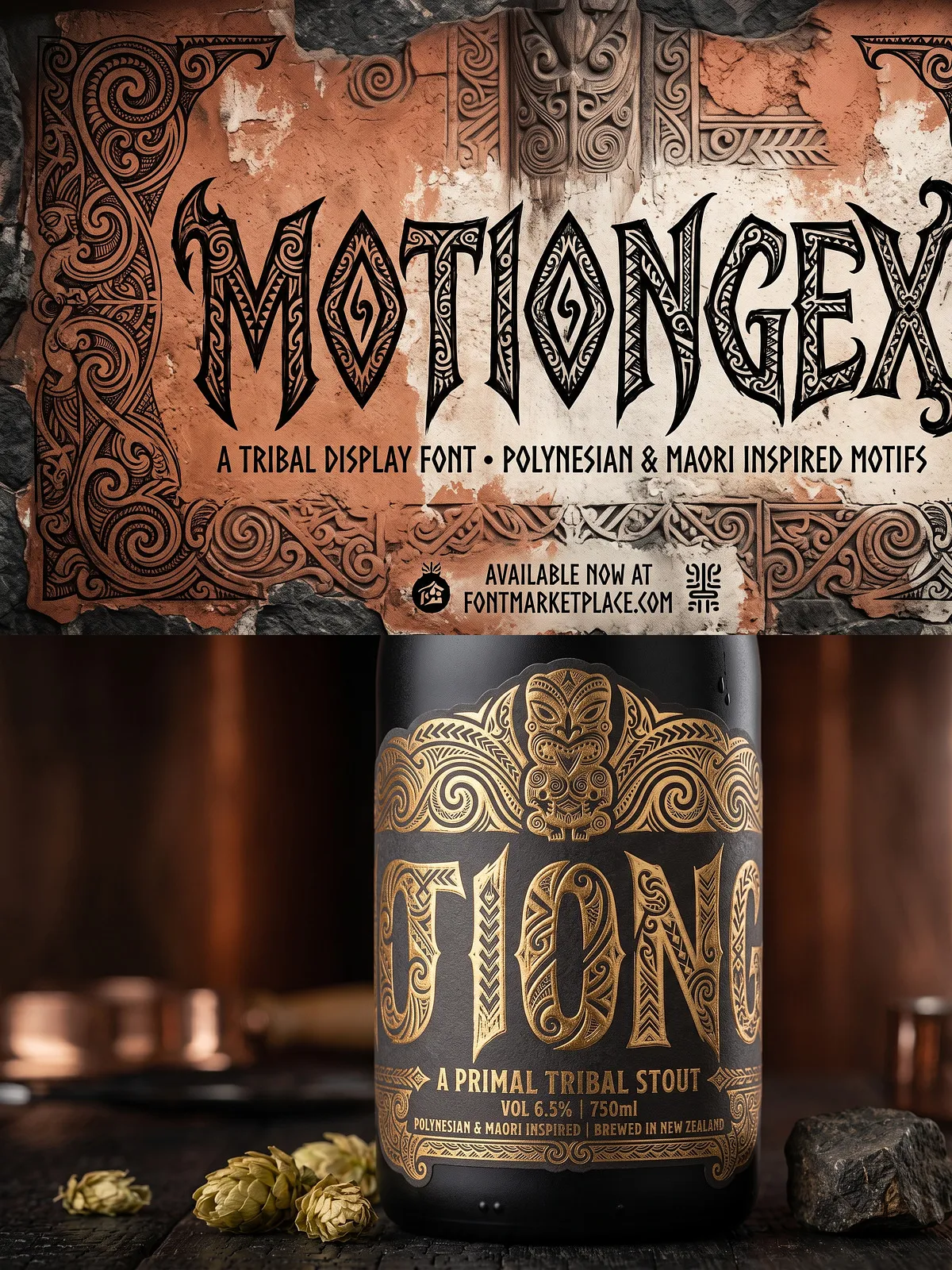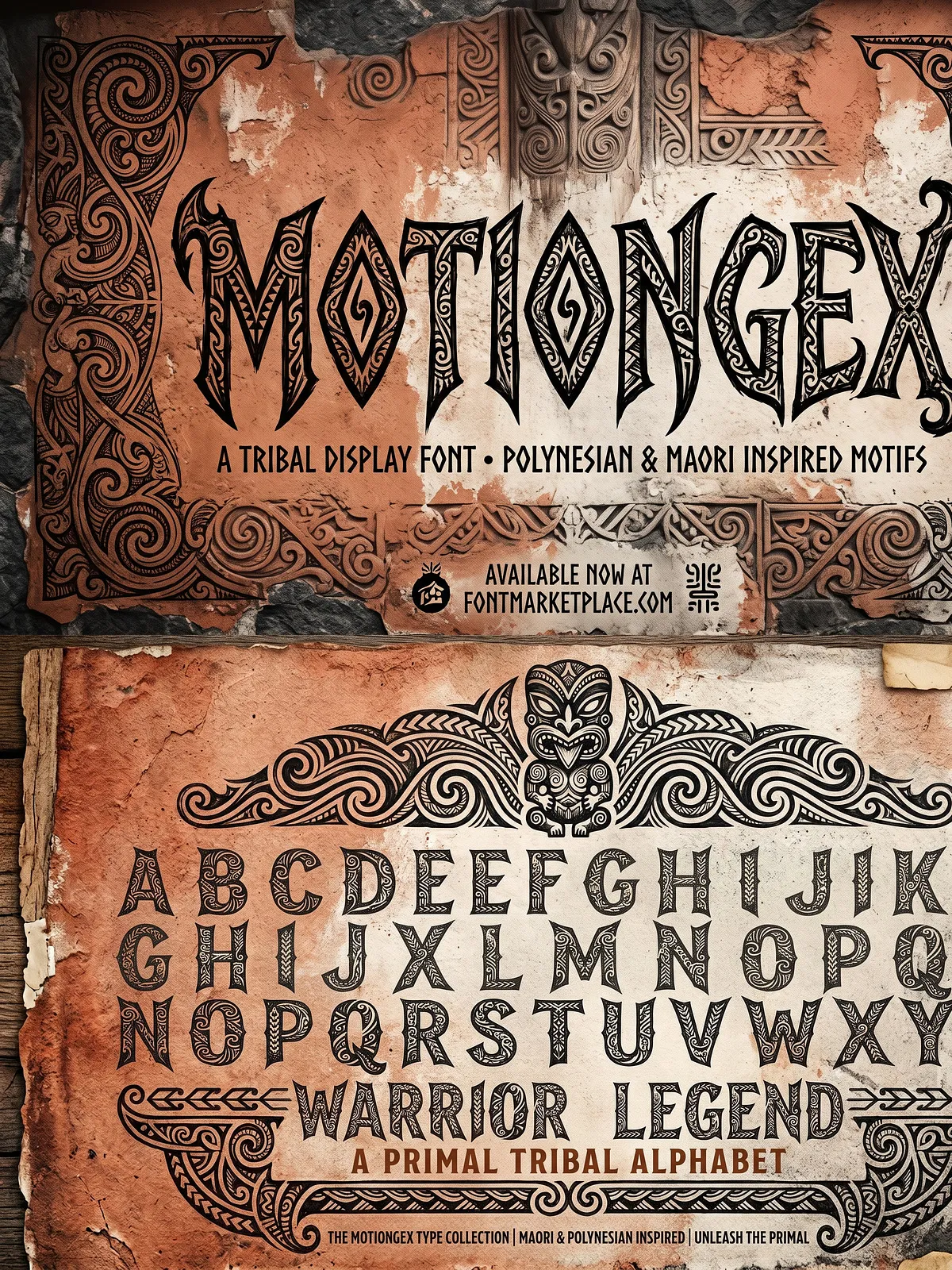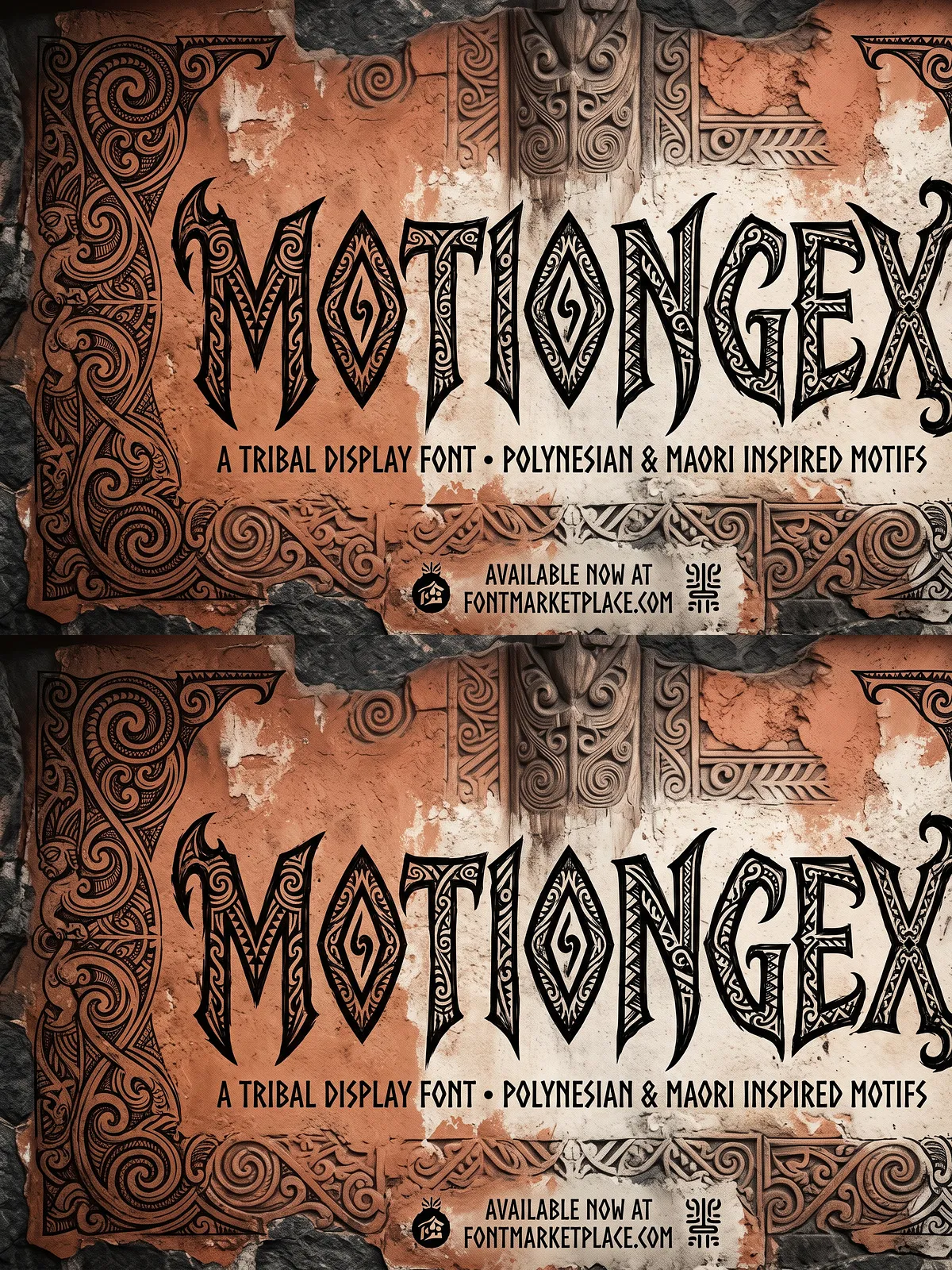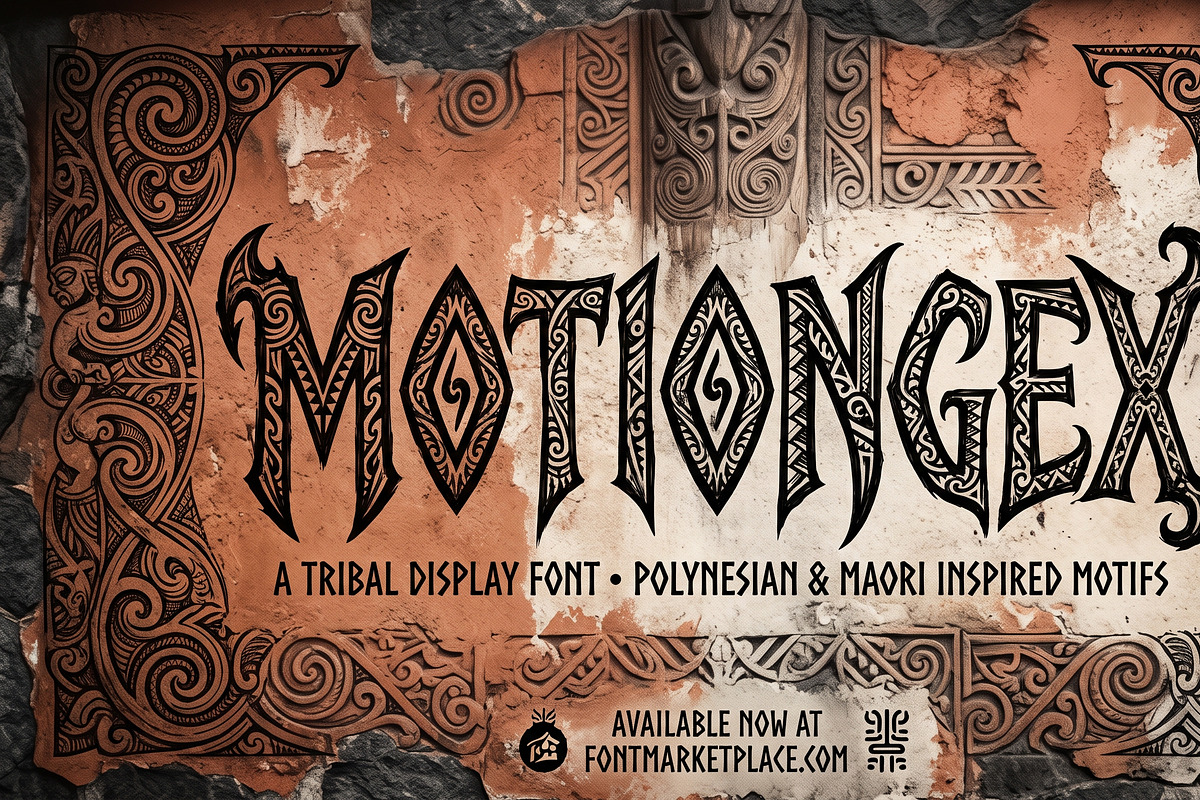
MOTIONGEX delivers a raw, powerful typographic voice inspired by ancient ethnic ornaments, carved patterns, and warrior tattoo motifs. Designed as a high-impact display font, MOTIONGEX uses sharp angular strokes and decorative inlay details to command attention and convey cultural strength. The family reads confidently at large sizes and translates effectively across apparel, packaging, posters, and visual identities that need a fearless, primal personality.
Complete Character Set
- Uppercase and lowercase letters — robust display shapes with tribal accents.
- Numerals and punctuation — clean, compatible glyphs for layouts and headlines.
- Multilingual support — extended Latin character set to cover Western languages.
- PUA encoded glyphs — access all decorative characters and alternates without special tools or font editors.
- Bold tribal letterforms: Strong contrast, pronounced terminals, and carved-in decorative strokes that emphasize a handcrafted aesthetic.
- Intricate ethnic detailing: Subtle ornaments and patterning embedded into glyph shapes to amplify cultural texture.
- High-impact display performance: Maintains legibility and visual power at poster and headline scales.
Perfect For
Apparel & Streetwear
Apply MOTIONGEX to T-shirt prints, hoodies, and caps to establish a bold, tribal-forward identity. The font’s carved details reproduce well on garment printing techniques including screen print and direct-to-garment.
Tattoo Art & Design
Use MOTIONGEX as a starting point for tattoo lettering, signage, or body-art mockups. Its angular strokes and decorative inlays echo traditional tattoo motifs while offering modern typographic control.
Posters, Flyers & Album Covers
Design compelling promotional artwork and album covers that demand attention. MOTIONGEX anchors bold compositions and pairs effectively with textured backgrounds and photographic imagery.
Logo & Branding
Craft fearless marks and wordmarks for brands that want to communicate power, heritage, and authenticity. Use alternates and PUA glyphs to customize letterforms for unique brand signatures.
Design Tips & Best Practices
Hierarchy & Pairing
Reserve MOTIONGEX for display roles—headlines, titles, and logos—where its ornamentation can breathe. Pair it with a neutral sans or a restrained serif for supporting text to maintain clarity across body copy and menus.
Color, Texture & Treatment
Amplify the tribal aesthetic with high-contrast color palettes: deep earth tones, monochrome black, or metallic accents. Combine the font with distressed textures, woodgrain, or stone backgrounds to reinforce an authentic, hand-crafted look.
Spacing & Scaling
Adjust tracking and kerning carefully when setting words at large sizes to avoid visual crowding from decorative elements. When using intricate glyphs, increase letter spacing slightly to preserve ornament legibility.